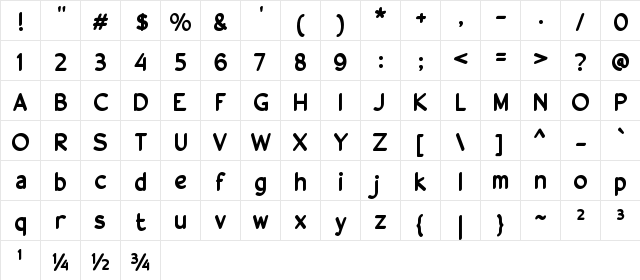
a Anti Corona Regular
| Designer | Wahyu Eka Prasetya |
Design Context for a Anti Corona Typeface
a Anti Corona is a composed and adaptable typeface that performs quietly and consistently across a wide range of design contexts.